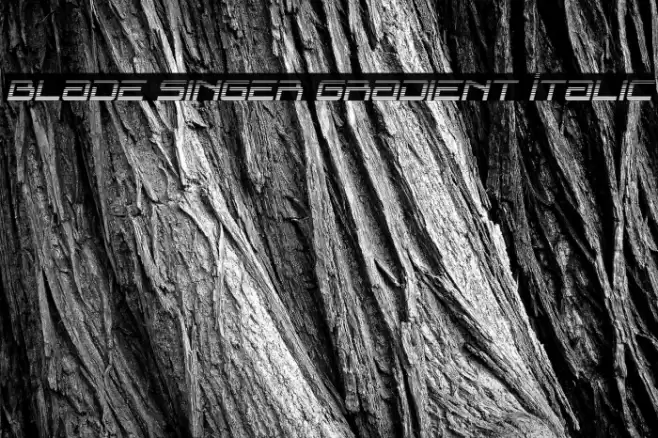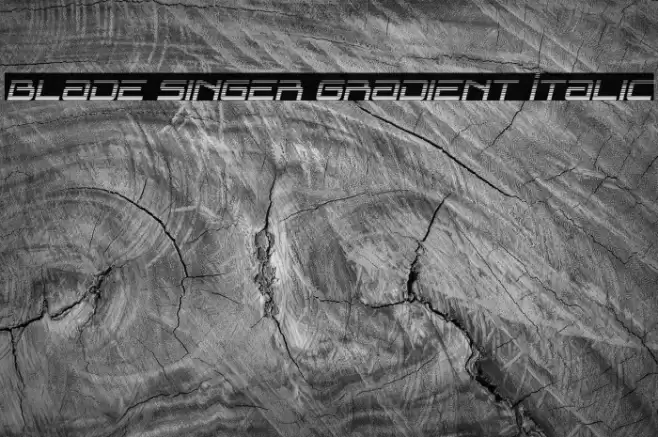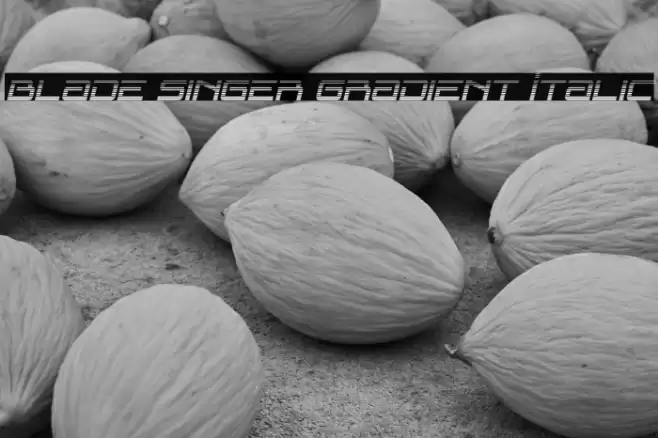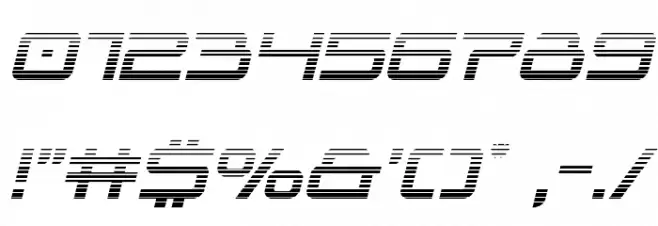
Blade Singer Gradient Italic Font
Blade Singer Gradient Italic Description
This font features a futuristic and dynamic design, characterized by its italicized and gradient-striped appearance. The letters are constructed with a series of parallel lines, creating a sense of movement and speed. The uppercase and lowercase letters maintain a consistent style, with sharp angles and a sleek, modern aesthetic. The numerals and special characters follow the same design principles, ensuring uniformity across all glyphs. This font's unique style makes it stand out, offering a bold and innovative look suitable for various creative applications.
A futuristic, italicized font with gradient-striped letters and a dynamic, modern look from Uncategorized fonts.